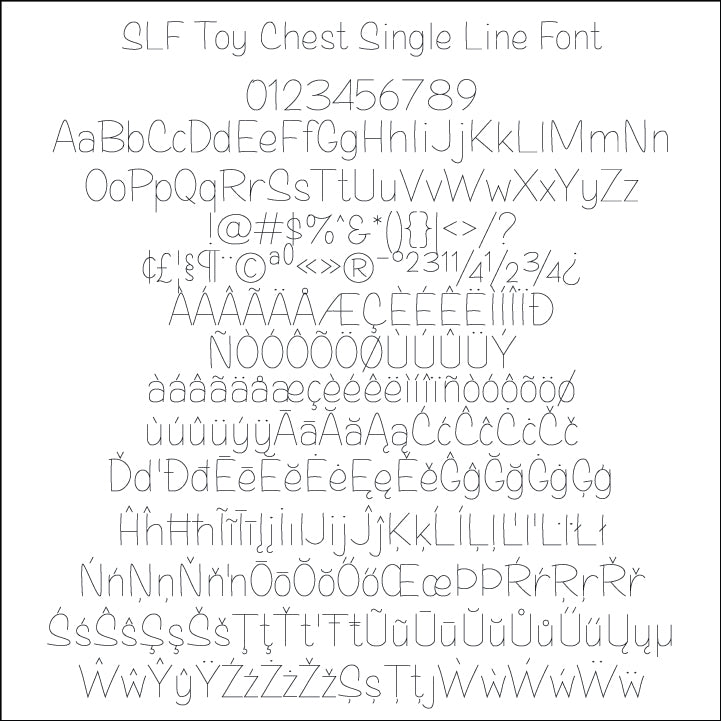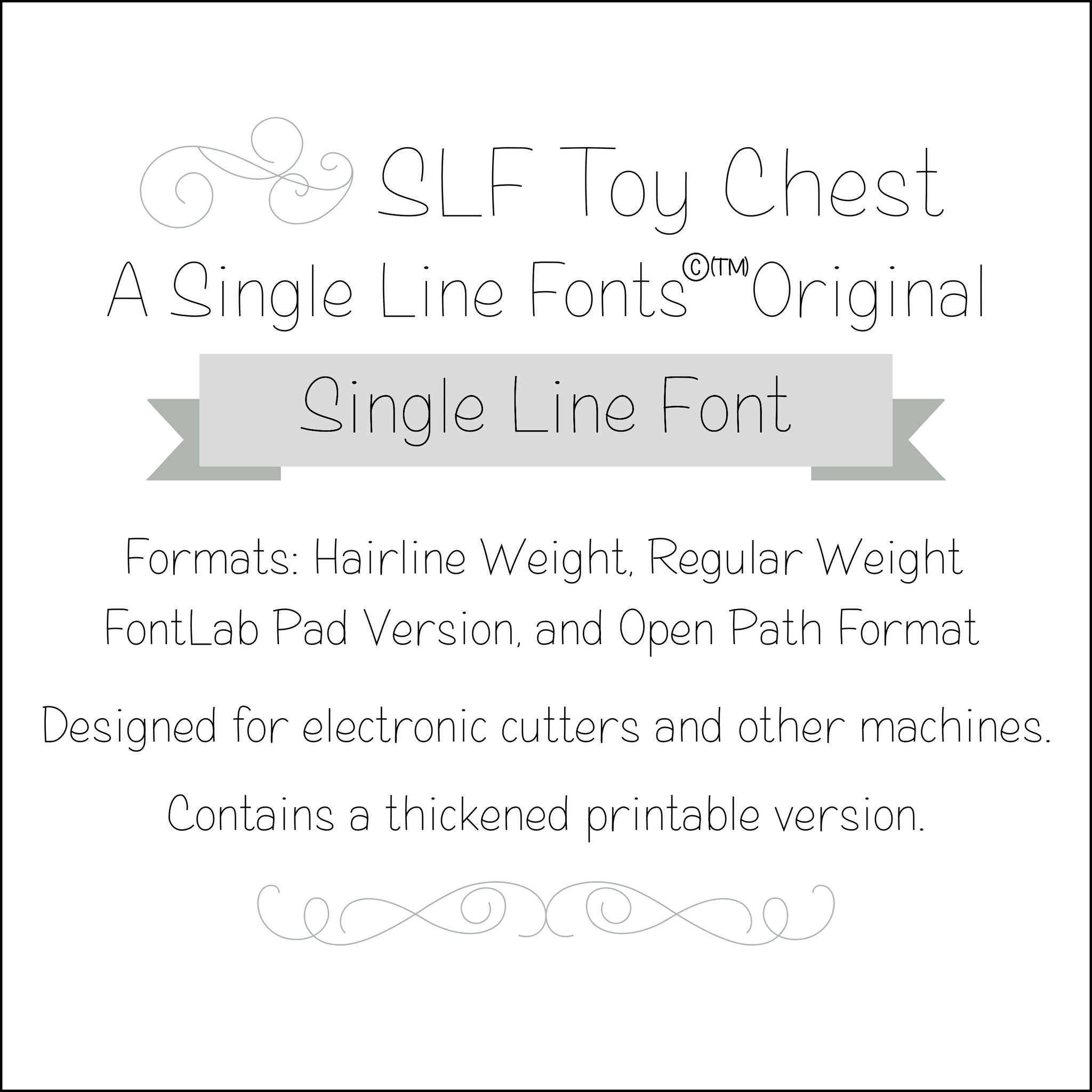
SLF Toy Chest
Meet SLF Toy Chest, a precise and versatile single line font designed for Glowforge, Silhouette, Cricut, and other compatible machines. With its clean print-style lettering and thoughtfully drawn strokes, this font delivers professional results in scoring, engraving, sketching, and foil applications—without the bulk of traditional filled fonts.
Each letter is crafted for clarity and flow, offering a polished yet handmade feel that's perfect for a wide range of creative projects. Whether you're personalizing gifts, designing stationery, or working on intricate crafts, SLF Toy Chest brings consistency, charm, and effortless readability to every design.
As with all of my fonts, be sure to check the 2nd picture to see all of the included characters, including extended Latin characters for alternate languages.